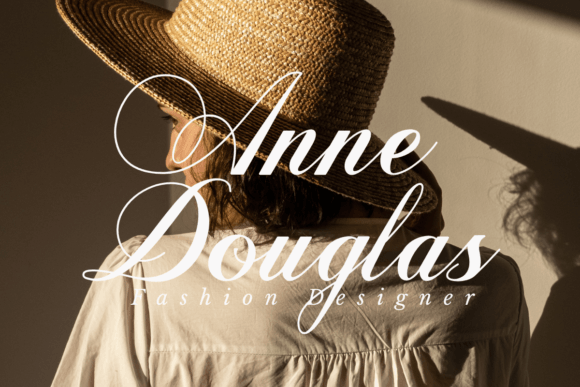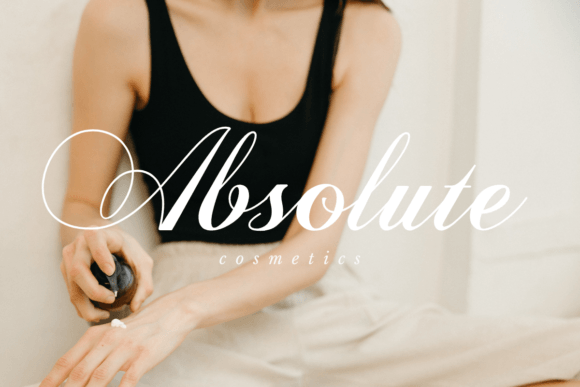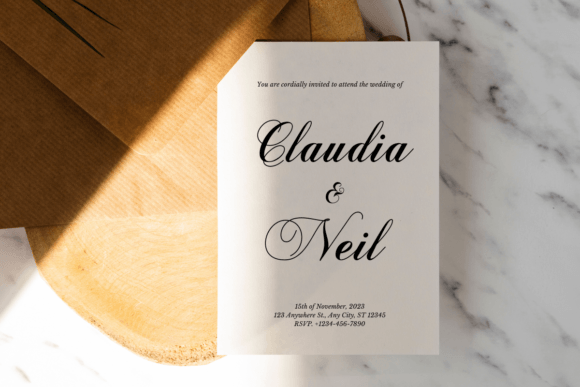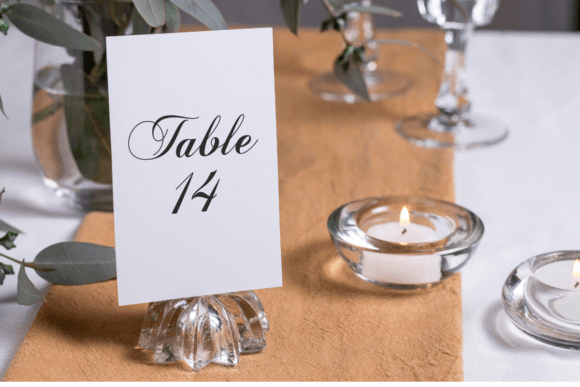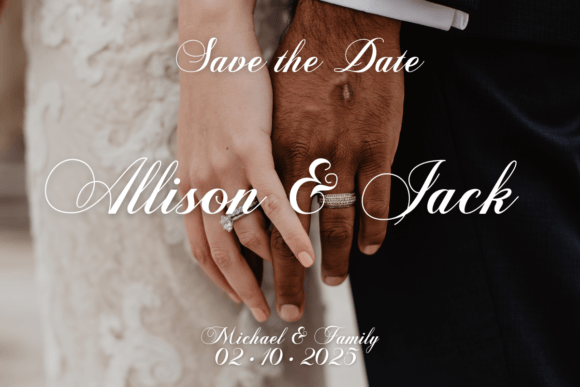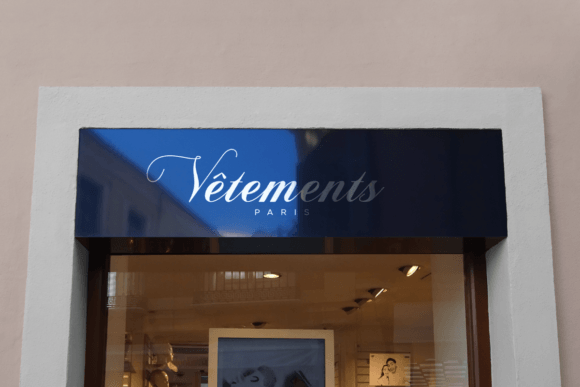
Discover the Elegance of Deutschlands Font: Elevate Your Designs with Old Style Calligraphy
In the realm of typography, fonts play a pivotal role in conveying messages, expressing creativity, and enhancing the aesthetic appeal of designs. Among the myriad of fonts available, Deutschlands Font stands out for its unique blend of modern style and traditional old-style calligraphy. This versatile font is crafted to meet the diverse needs of designers and crafters, making it an indispensable tool in the world of design.
What is Deutschlands Font?
Deutschlands Font, also known as Deutschlands – Old Style Calligraphy, is a modern, casual font designed to cater to a wide range of design requirements. Its creation is a testament to the fusion of contemporary style with the elegance of old-style calligraphy, offering a fresh yet classic look that can elevate any design project.
Key Features of Deutschlands Font
• Modern and Casual Appeal: Deutschlands Font boasts a modern and casual aesthetic, making it perfect for designs that require a touch of sophistication and approachability.
• Versatility: This font is incredibly versatile and can be used across various design projects, including logos, branding, titles, social media posts, advertisements, product packaging, and more.
• Elegant and Readable: The old-style calligraphy elements ensure that the font remains elegant and highly readable, even at smaller sizes.
• Extensive Use Cases: From product designs, labels, and photography to watermarks, special events, magazines, and web design, Deutschlands Font can be applied in numerous contexts.
Applications of Deutschlands Font
The adaptability of Deutschlands Font makes it a favorite among designers and crafters. Here are some of the key areas where this font can make a significant impact:
• Logos and Branding: Create memorable logos and brand identities with a distinctive and elegant touch.
• Social Media and Marketing: Stand out on social media platforms and in marketing materials with eye-catching titles and captions.
• Product Packaging and Design: Enhance product packaging and design with a sophisticated and modern look.
• Photography and Watermarks: Add an artistic flair to your photographs and protect your work with elegant watermarks.
• Magazines and Web Design: Elevate the readability and aesthetic appeal of magazines, blogs, and websites.
Why Choose Deutschlands Font?
In a world where design trends are constantly evolving, having a font that can keep up with the demands of modern design while offering a timeless appeal is invaluable. Deutschlands Font offers:
• Uniqueness: A distinctive style that sets your designs apart from the crowd.
• Flexibility: Suitable for both digital and print designs, ensuring consistency across different mediums.
• Professionalism: Adds a touch of professionalism and sophistication to any design project.
Font Name Deutschlands Font
Author Fikryal Studio
Deutschlands Font is more than just a typeface; it’s a design companion that can transform your creative projects with its modern, casual, and elegant style. Whether you’re a professional designer, a crafter, or someone who loves to dabble in design, this font offers the versatility and aesthetic appeal needed to bring your ideas to life. Embrace the elegance of old-style calligraphy with a modern twist and let Deutschlands Font be the key to unlocking your design potential.
Explore the endless possibilities with Deutschlands Font and discover how it can elevate your designs to new heights. With its wide range of applications and timeless appeal, it’s an excellent addition to any designer’s toolkit.